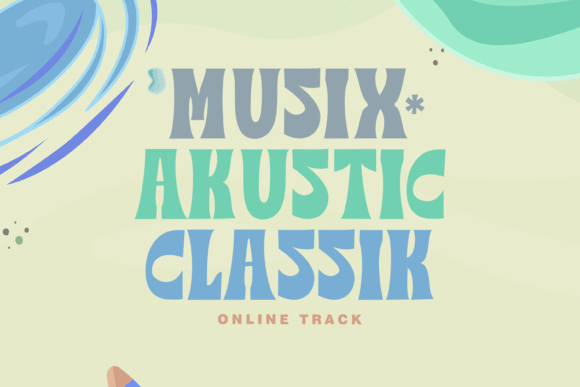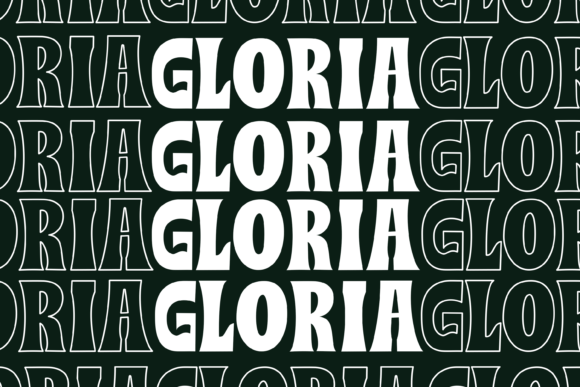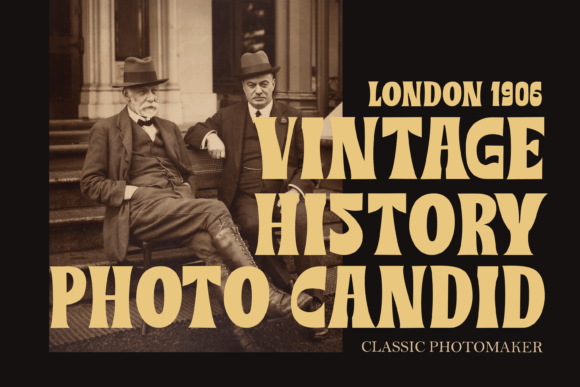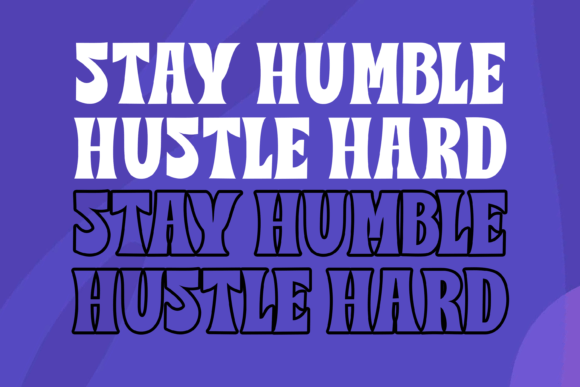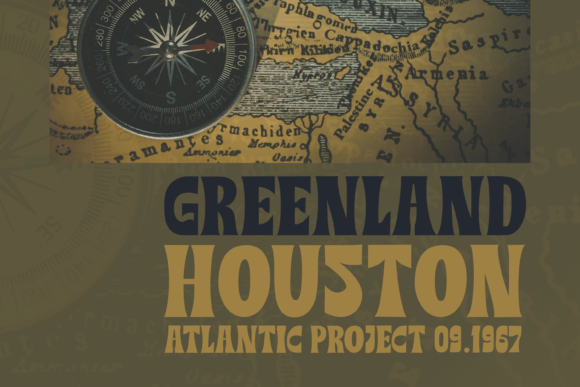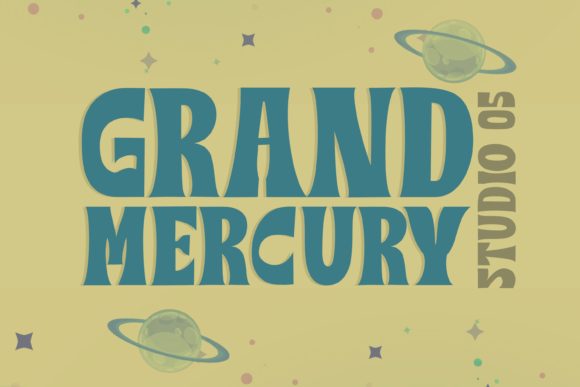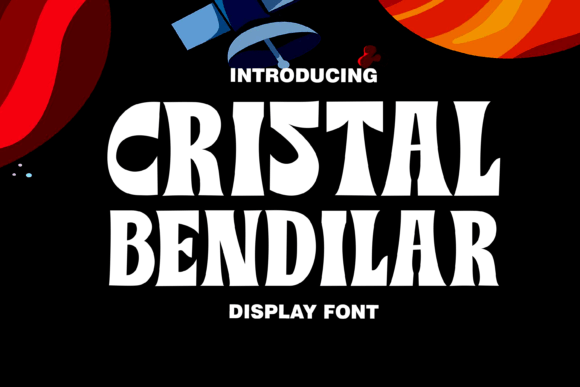
Cristal Bendilar Font: Elevate Your Design with Elegance and Versatility
In the realm of typography, a font can make or break the visual appeal of a design. For designers and crafters seeking a typeface that exudes elegance and modernity, Cristal Bendilar is a game-changer. This display typeface boasts variable weight and width, offering a plethora of creative possibilities. In this article, we’ll dive into the world of Cristal Bendilar, exploring its features, benefits, and uses.
What is Cristal Bendilar?
Cristal Bendilar is a cutting-edge, modern variable font that seamlessly blends the simplicity of sans-serif with the sophistication of serif typography. Each letter features a subtle serif touch, imbuing the font with a unique character. This elegant typeface is designed to be highly legible, making it perfect for a wide range of applications, from digital displays to print materials.
Key Features of Cristal Bendilar
- Variable Weight and Width: Cristal Bendilar offers a vast range of weights and widths, allowing designers to experiment with different styles and combinations. This versatility enables you to create stunning visual hierarchies and emphasize specific elements in your design.
- Elegant and Modern Design: The font’s sleek, contemporary aesthetic makes it ideal for designs that require a touch of sophistication. The subtle serif details add a level of refinement, setting Cristal Bendilar apart from more traditional sans-serif fonts.
- High Legibility: Cristal Bendilar’s clear, simple letterforms ensure excellent readability, even at smaller font sizes. This makes it an excellent choice for body text, headings, and display text.
Cristal Bendilar offers numerous benefits for designers and crafters, including:
- Endless Creative Possibilities: With its variable weight and width, Cristal Bendilar provides an almost endless range of creative possibilities. Experiment with different combinations to create unique visual styles that elevate your design.
- Time-Saving: The font’s versatility and legibility make it an excellent choice for projects that require multiple font styles. Use Cristal Bendilar to create a cohesive visual identity across various design elements.
Using Cristal Bendilar in Your Design
So, how can you make the most of Cristal Bendilar in your design? Here are some tips:
- Experiment with Weight and Width: Don’t be afraid to try out different weight and width combinations to create visual interest and hierarchy.
- Pair with Other Fonts: Cristal Bendilar pairs well with a variety of fonts. Experiment with different pairings to create a unique visual style.
- Pay Attention to Kerning and Tracking: As with any font, pay attention to kerning and tracking to ensure optimal readability and aesthetics.
Cristal Bendilar is a powerful, elegant, and modern variable font that offers a world of creative possibilities for designers and crafters. Its unique blend of sans-serif simplicity and serif sophistication, combined with its variable weight and width, make it an excellent choice for a wide range of design applications. Whether you’re working on a digital project or a print material, Cristal Bendilar is sure to elevate your design and leave a lasting impression.